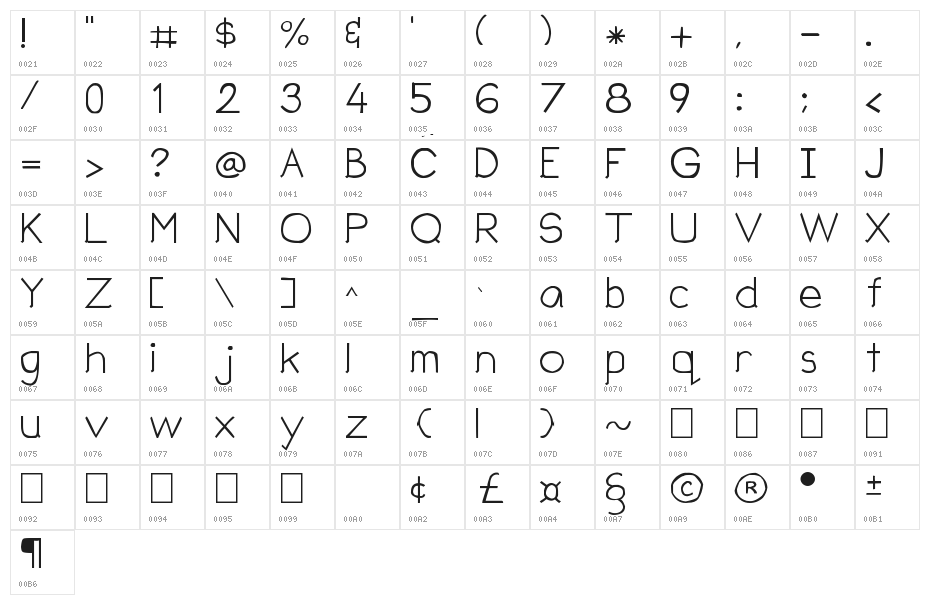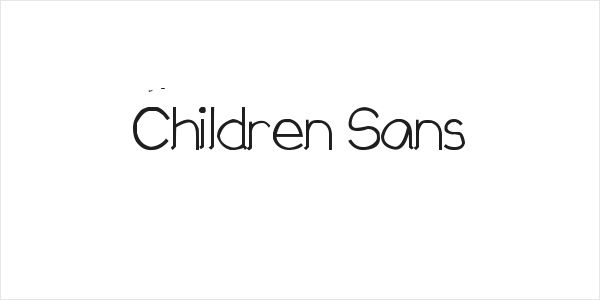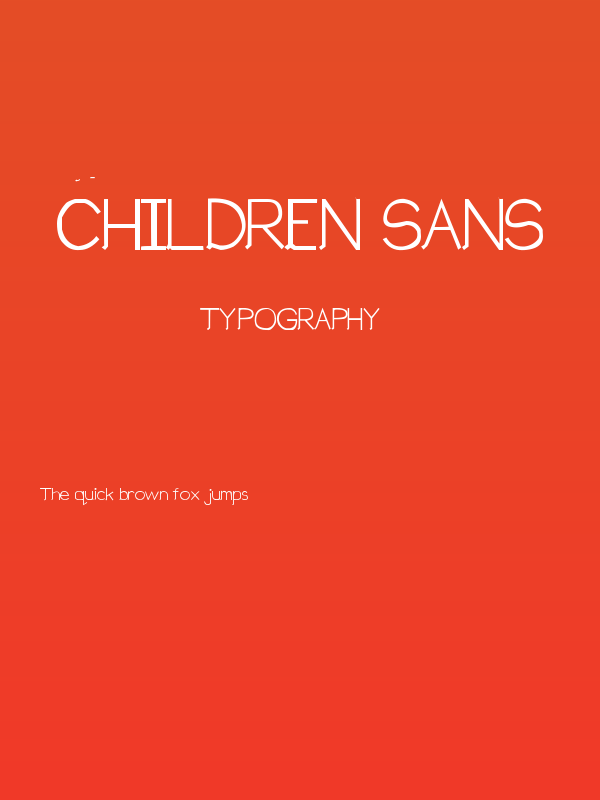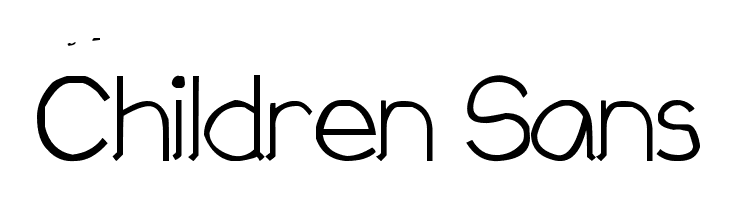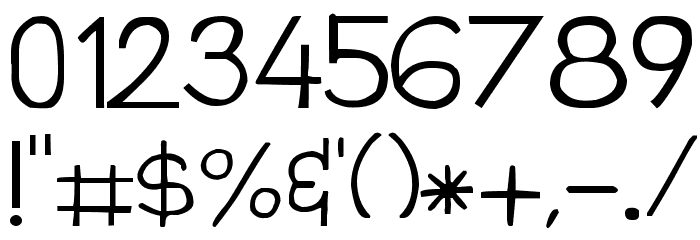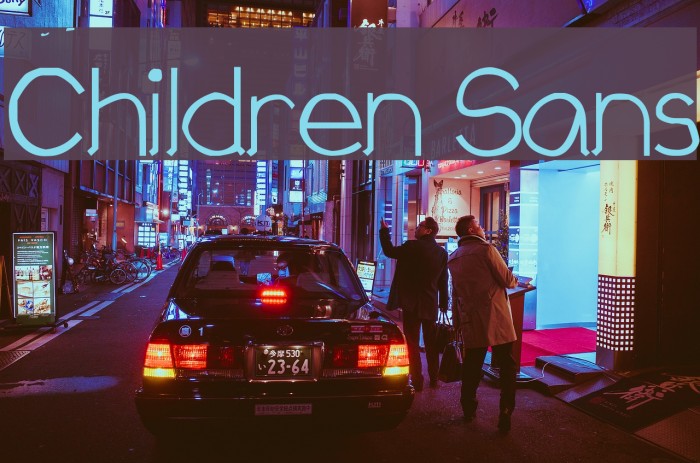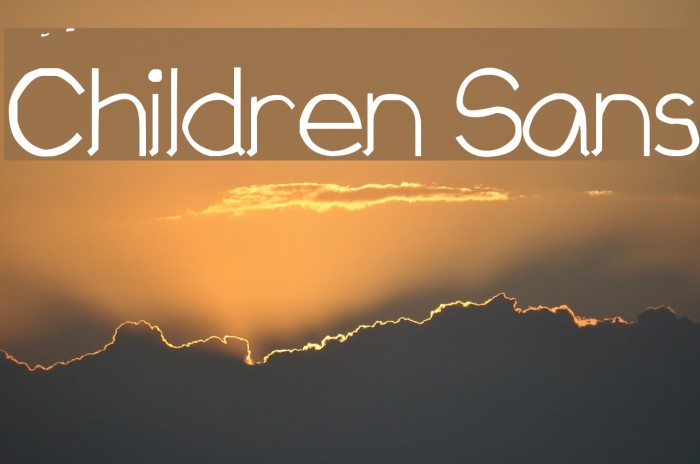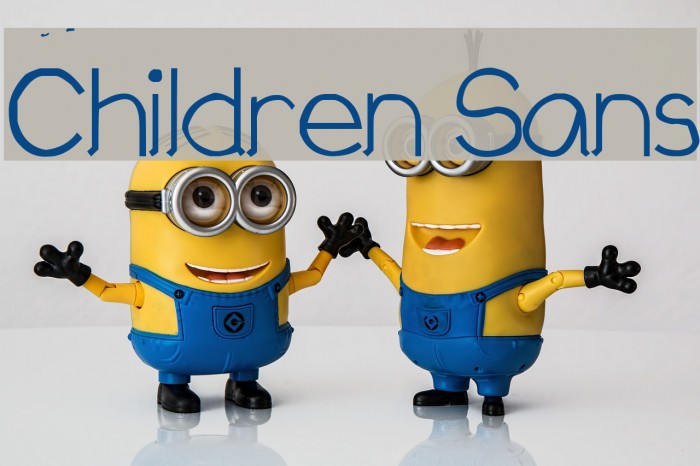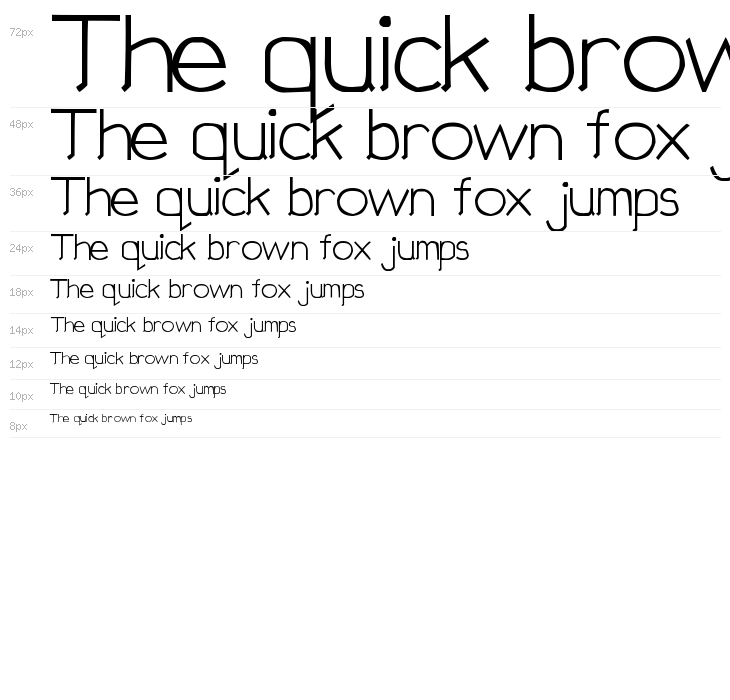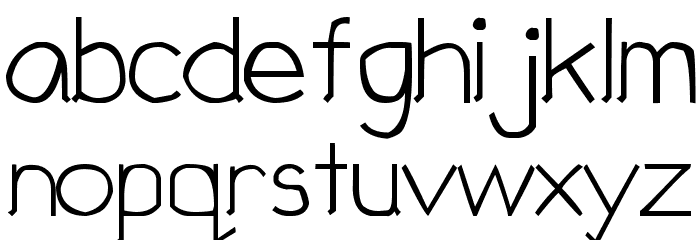
Children Sans Font
Children Sans Description
This playful and modern typeface features a clean, sans-serif design with rounded edges that give it a friendly and approachable appearance. The letters are evenly spaced, providing a balanced and harmonious look. The uppercase and lowercase characters maintain a consistent style, with a slight variation in stroke thickness that adds a subtle dynamic quality. The numerals are clear and easy to read, making them suitable for a variety of applications. Special characters are included, offering versatility for different design needs. This font is ideal for projects that require a youthful and energetic vibe.
| Proposed Projects | Ideal for children's books, educational materials, playful branding, and modern web design. |